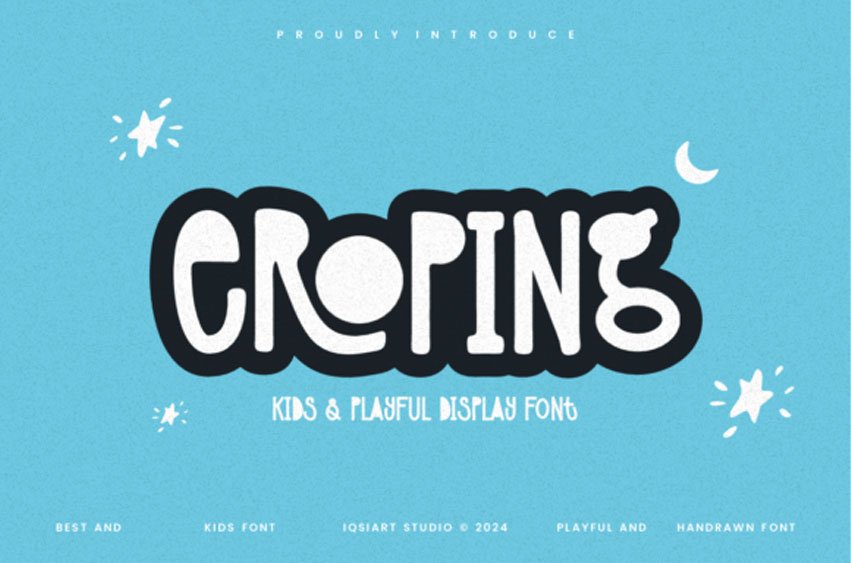
Eroping Font is a fun and quirky display font made especially for kids-themed designs. With its bubbly, hand-drawn look and cheerful character forms, this font adds a dose of playfulness to posters, storybooks, learning materials, branding, and more.
The thick outlines and playful rhythm make it eye-catching and perfect for youthful audiences.